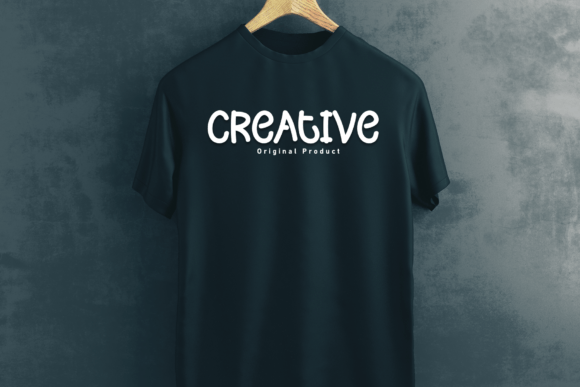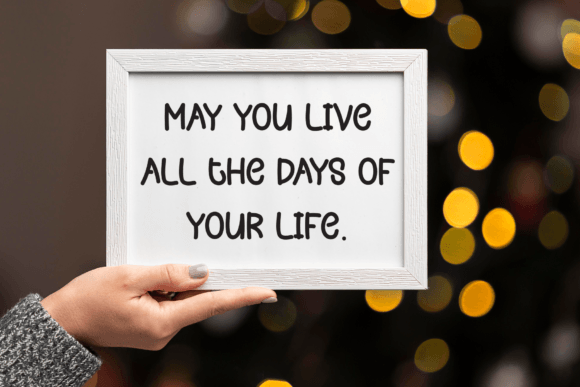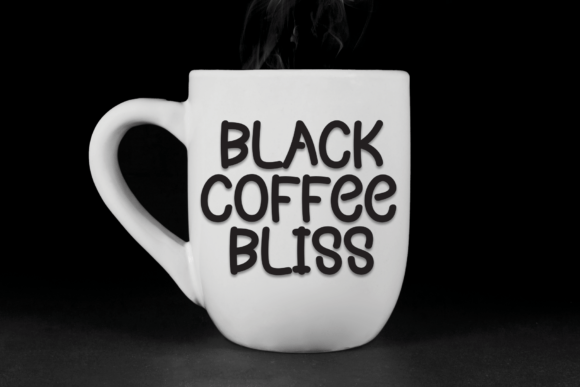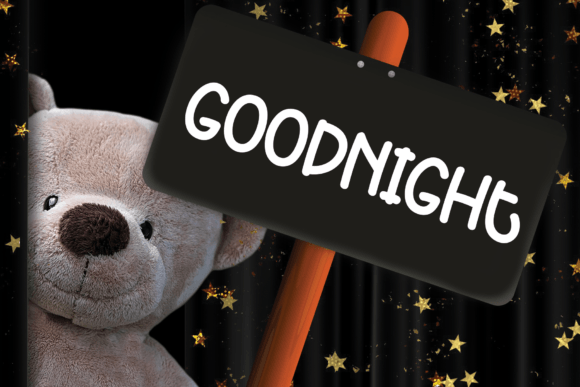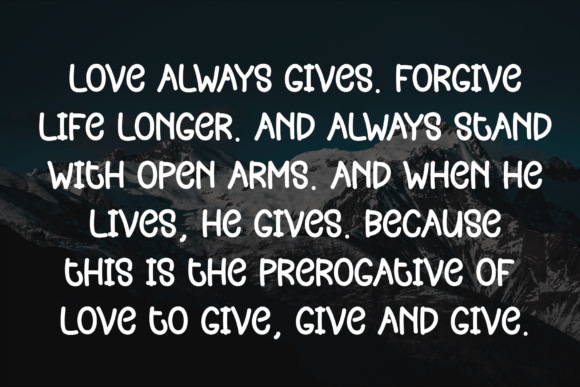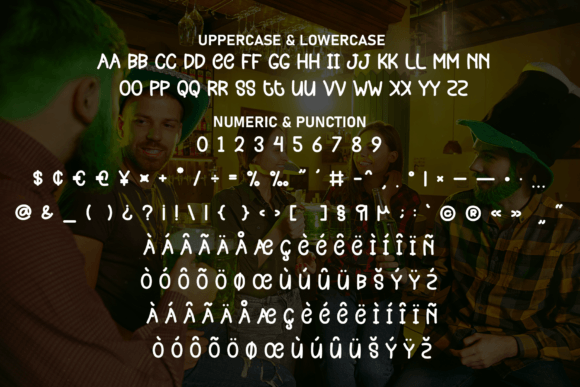
Introduction to Party Grinch Font
Have you ever been scrolling through your social media feeds and stumbled upon a party invitation that made you go “wow”? The text was playful, fun, and instantly grabbed your attention. Chances are, the designer behind that invitation used the Party Grinch Font to add a touch of whimsy to the design. This fun and bold handwritten font has been a favorite among designers for its ability to add a cheerful vibe to any project.
As a designer, you’re always on the lookout for unique and high-quality design resources that can help elevate your creative project. The Party Grinch Font is one such resource that can add a playful twist to your design. With its quirky style and transparent background, it’s perfect for adding a festive touch to your party invitations, decorations, and more. And the best part? It’s available for free download, making it an accessible design resource for designers of all levels.
Key Features of Party Grinch Font
- High-quality design resource perfect for creative projects, including invitations, posters, and more.
- Unique, bold, and playful font style, reminiscent of the beloved Dr. Seuss character, perfect for adding a touch of whimsy to any design project.
Honest Review: Party Grinch Font
As a designer, I’m always on the lookout for unique and high-quality design resources. The Party Grinch Font is a fun and creative project that can add a touch of whimsy to any design. One of the things that works well with this font is its versatility – it’s perfect for anything from party invitations to holiday-themed marketing materials.
- ✨ The font is highly customizable, allowing you to adjust the size, color, and style to fit your design needs.
- ✨ The Party Grinch Font has a transparent background, making it easy to layer over other design elements.
One of the limitations of the Party Grinch Font is that it’s a bit limited in terms of its font family. There are only a few styles to choose from, which may not be ideal for designers who need a wider range of options.
Overall, I’m really impressed with the Party Grinch Font. It’s a great resource for designers who want to add a bit of fun and personality to their creative projects. While it may have some limitations, its high quality and versatility make it a valuable addition to any design library.
The Party Grinch Font is a high-quality design resource perfect for creative projects. Use it to create invitations, posters, or social media graphics. The font’s unique style and transparent background make it ideal for adding a touch of whimsy to your designs.
Tips for Getting the Most Out of the Party Grinch Font
To get the most out of the Party Grinch Font, experiment with different font sizes, colors, and alignments. Combine the font with other design elements, such as images or graphics, to create visually appealing designs. You can also use the font in conjunction with other free downloads, such as graphics or templates, to enhance your creative project.